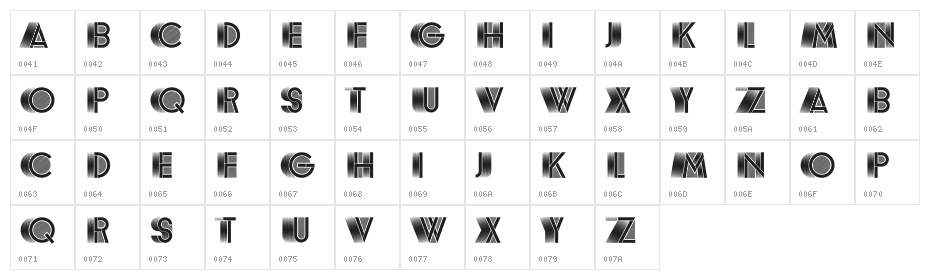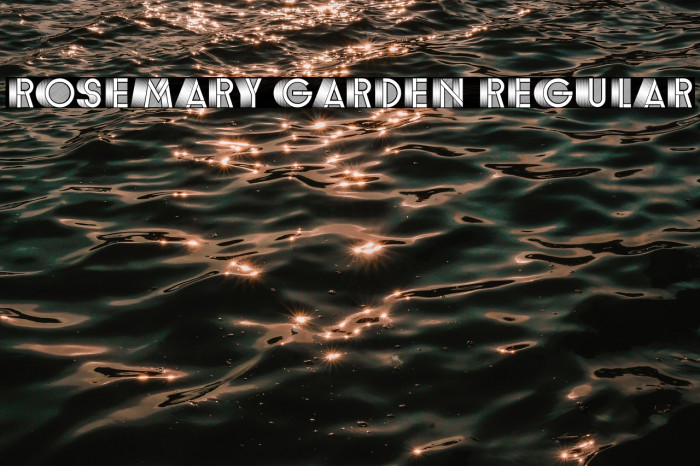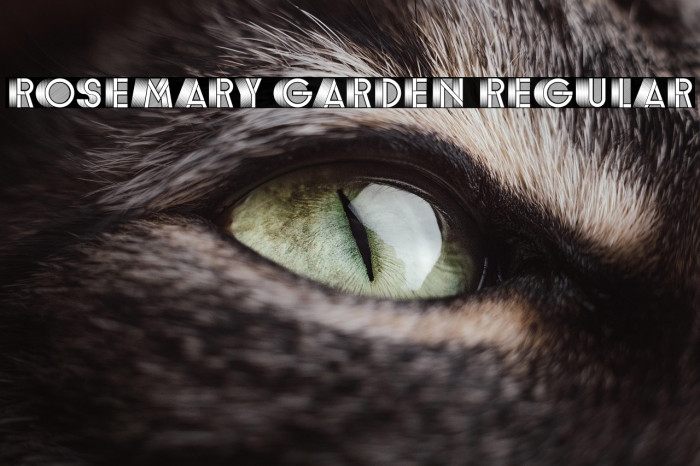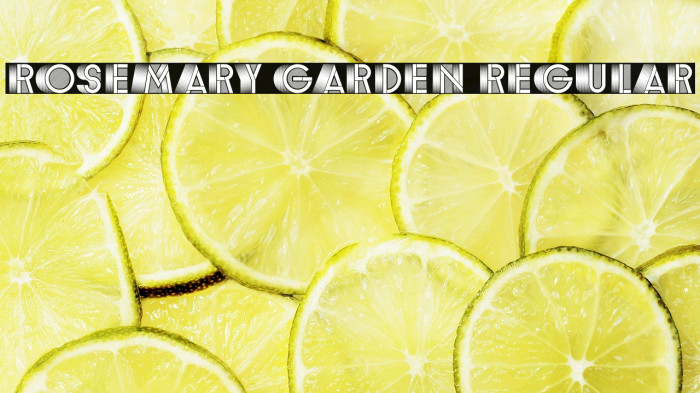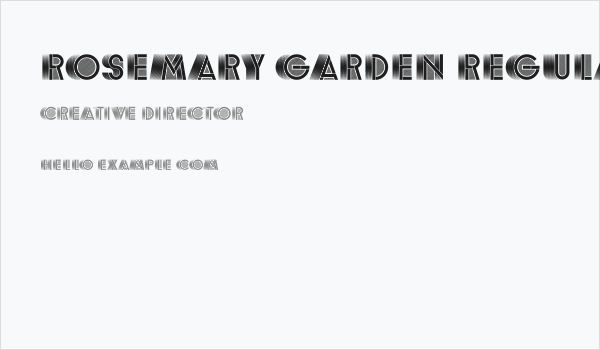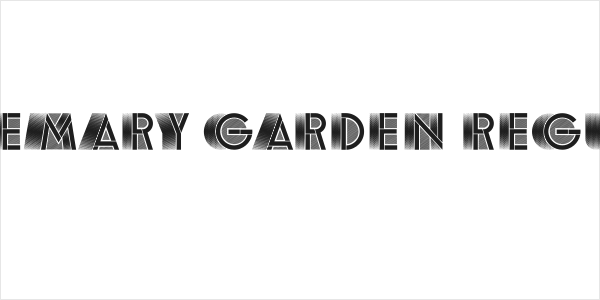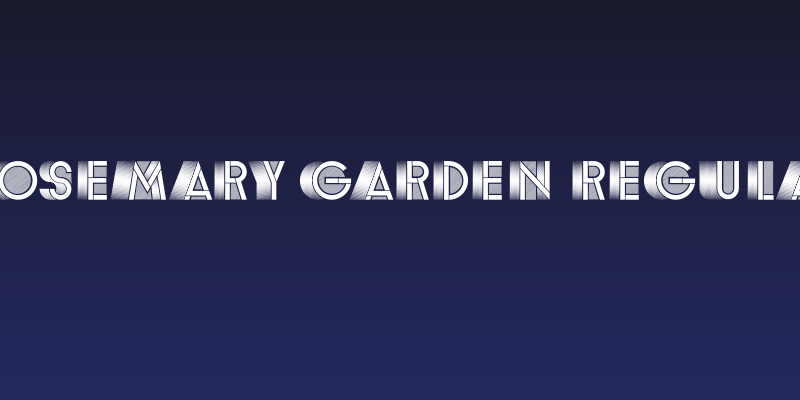
Rosemary Garden Regular Font
Rosemary Garden Regular Description
This font features a bold and striking design with a unique gradient effect that transitions from solid black to a lighter shade, creating a dynamic and eye-catching appearance. The characters are constructed with geometric precision, incorporating sharp angles and clean lines that give it a modern and futuristic feel. The use of negative space within the letters adds an additional layer of complexity and intrigue, making it suitable for projects that require a strong visual impact. The uppercase letters are particularly prominent, with a consistent height and width that ensures uniformity across the typeface. This font is ideal for creative projects where a bold statement is needed, such as in branding, advertising, or poster design.
Proposed ProjectsIdeal for branding, advertising, posters, and any project requiring a strong visual impact.